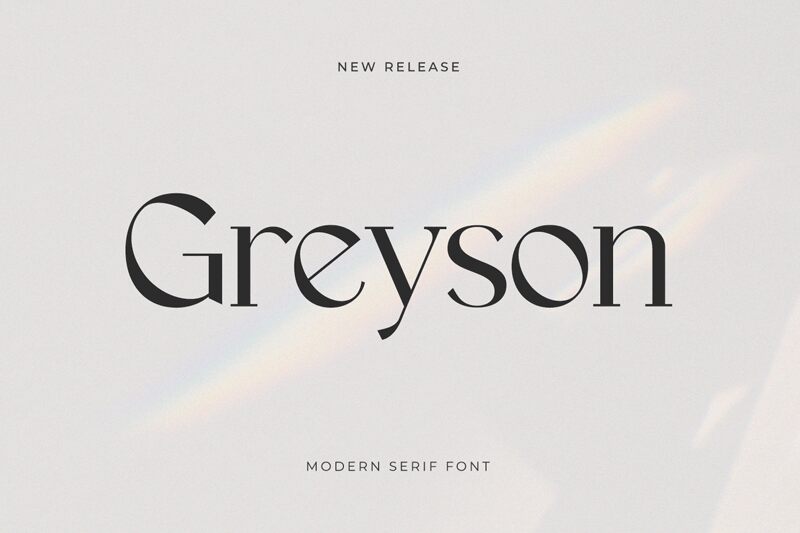
Grayson, the modern serif font designed by Viswell Studio, strikes a delicate balance between elegance and readability. With its semi-light weight, this font exudes sophistication while maintaining clarity in both print and digital mediums.
Whether you're designing a sleek fashion magazine spread or creating a professional website for a law firm, Grayson's refined aesthetic is the perfect choice. Its clean lines and contemporary feel make it suitable for projects ranging from luxurious branding to modern editorial layouts.
Elevate your designs with Grayson's versatile charm.